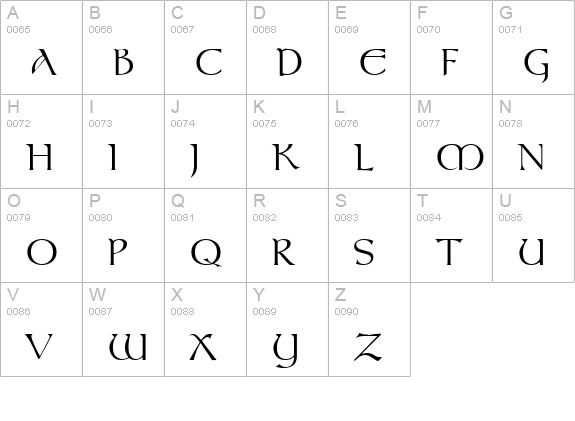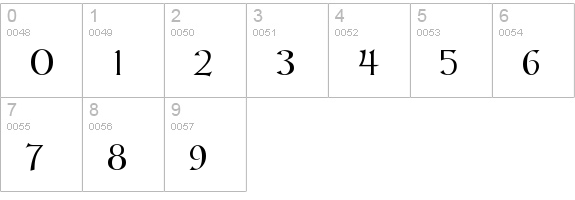
BoydUncial Font Details
BoydUncial font is a timeless and elegant typeface that combines classic calligraphy with a modern twist. Its unique design features gracefully flowing strokes and intricate details that make it perfect for adding a touch of sophistication to any project. Whether you're creating invitations, logos, or branding materials, BoydUncial font will elevate your designs to the next level. The best part? BoydUncial font is available for free download at FontsMarket.com. Embrace the beauty and versatility of this stunning typeface without any cost, and unlock endless creative possibilities for your work. Download BoydUncial font today and start crafting visually stunning designs that are sure to leave a lasting impression.